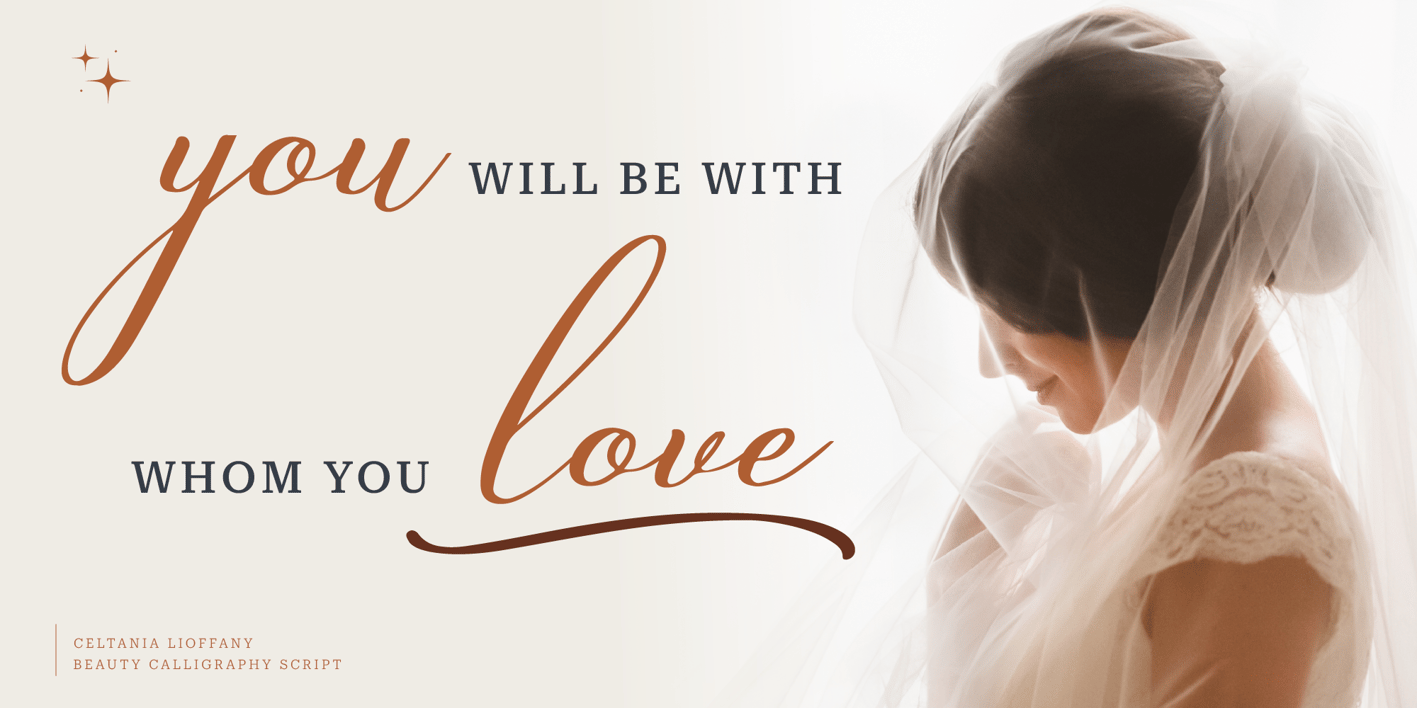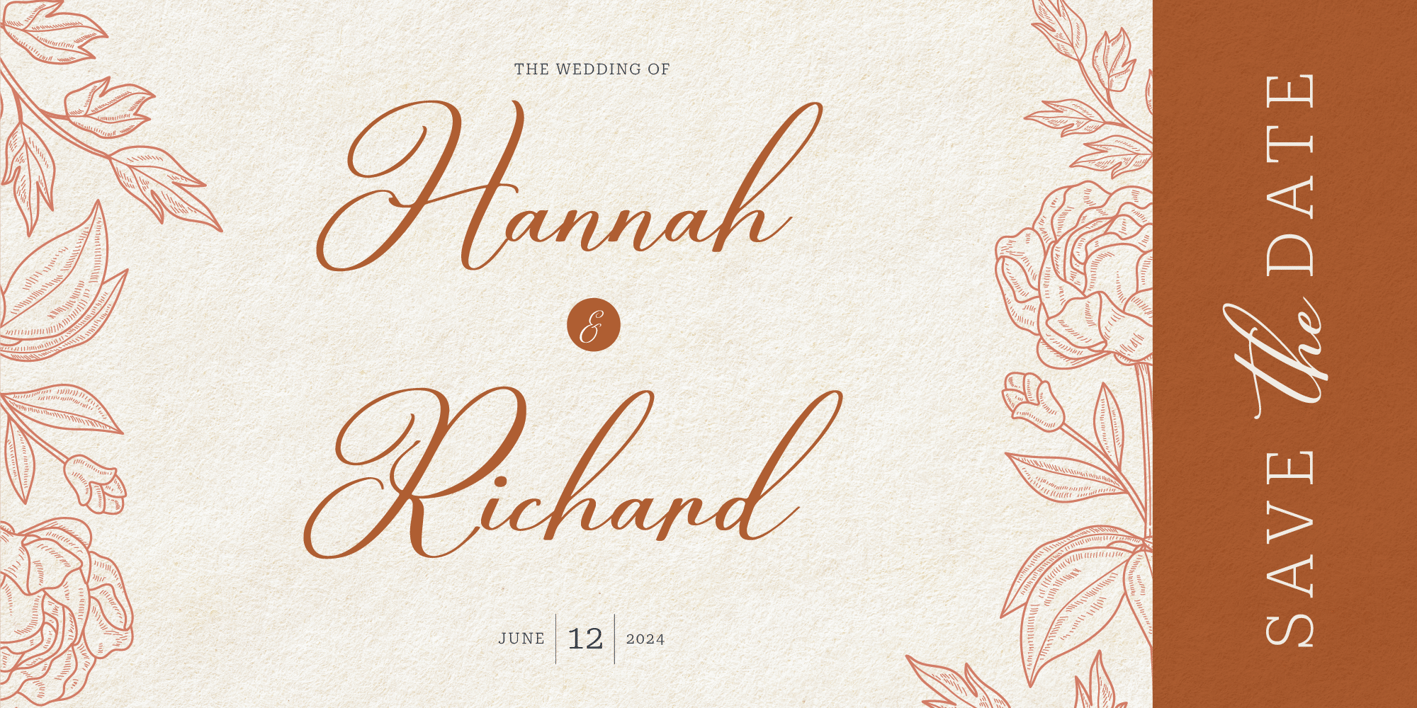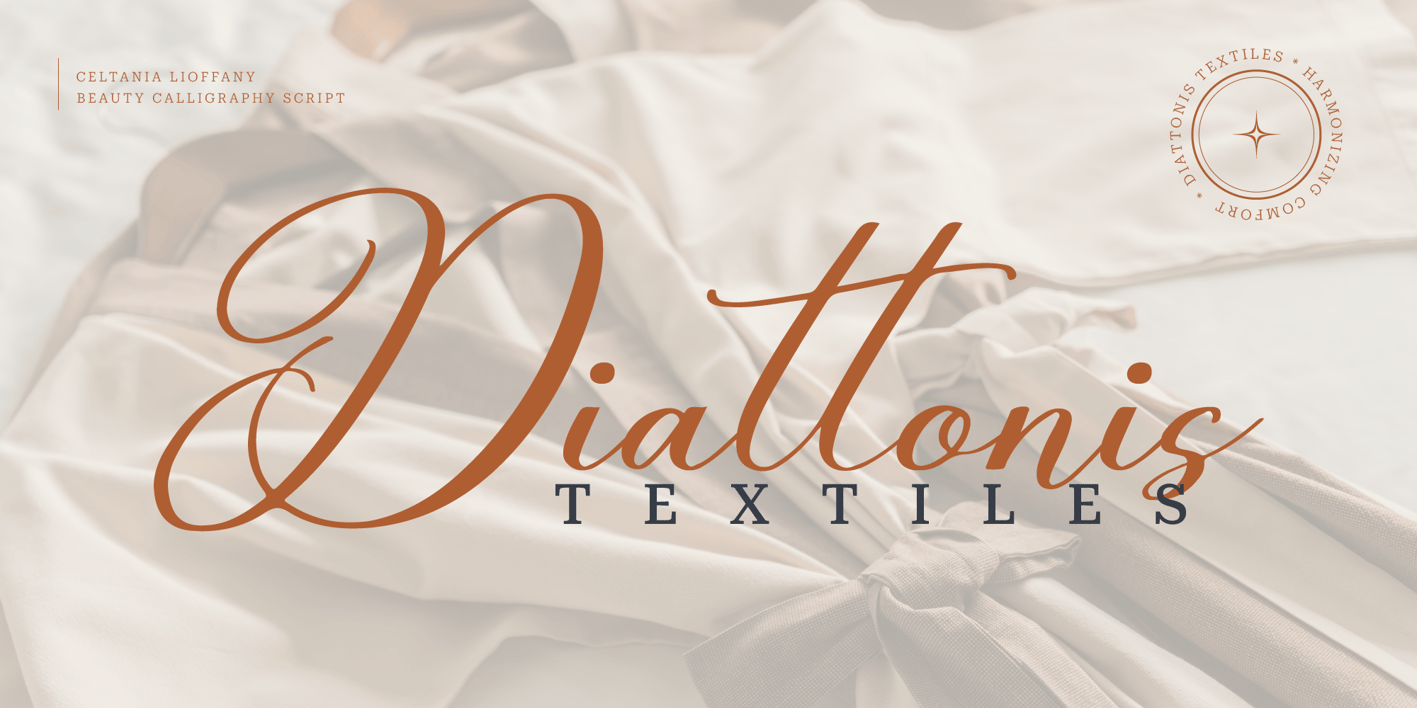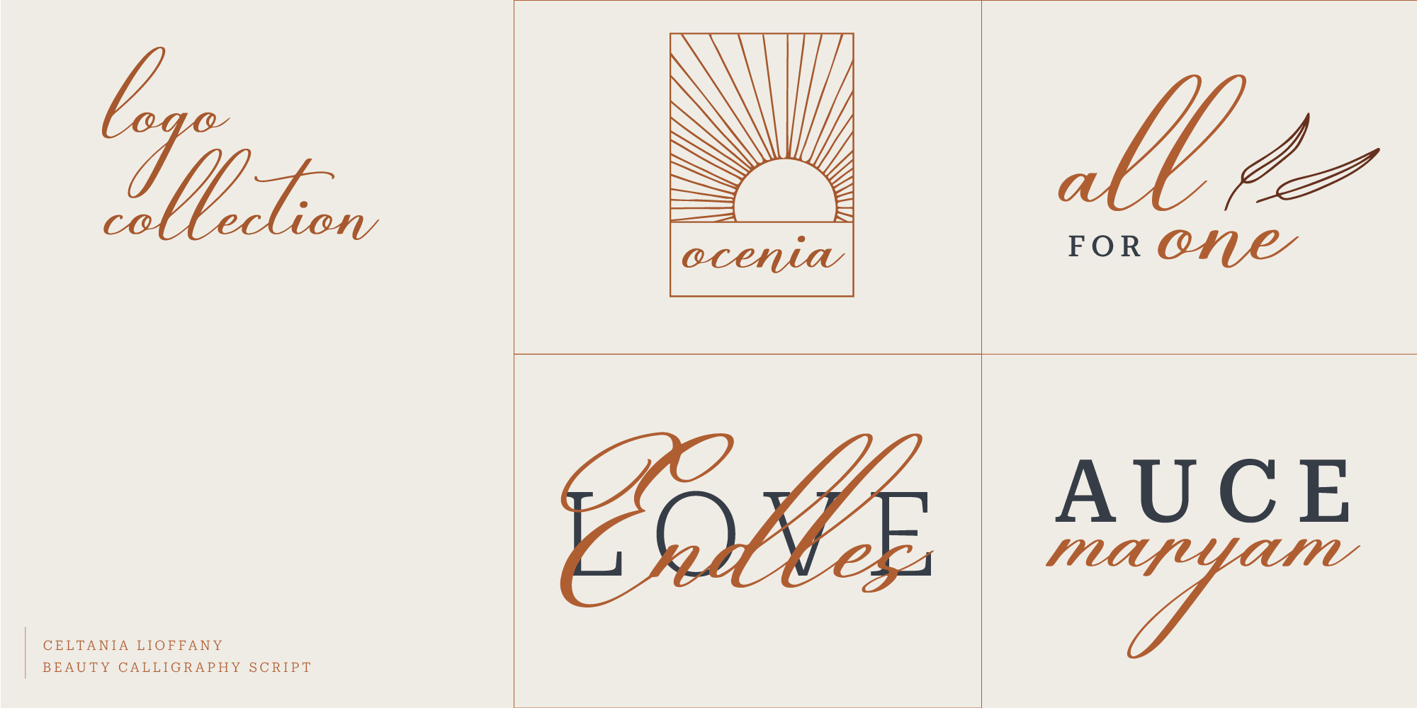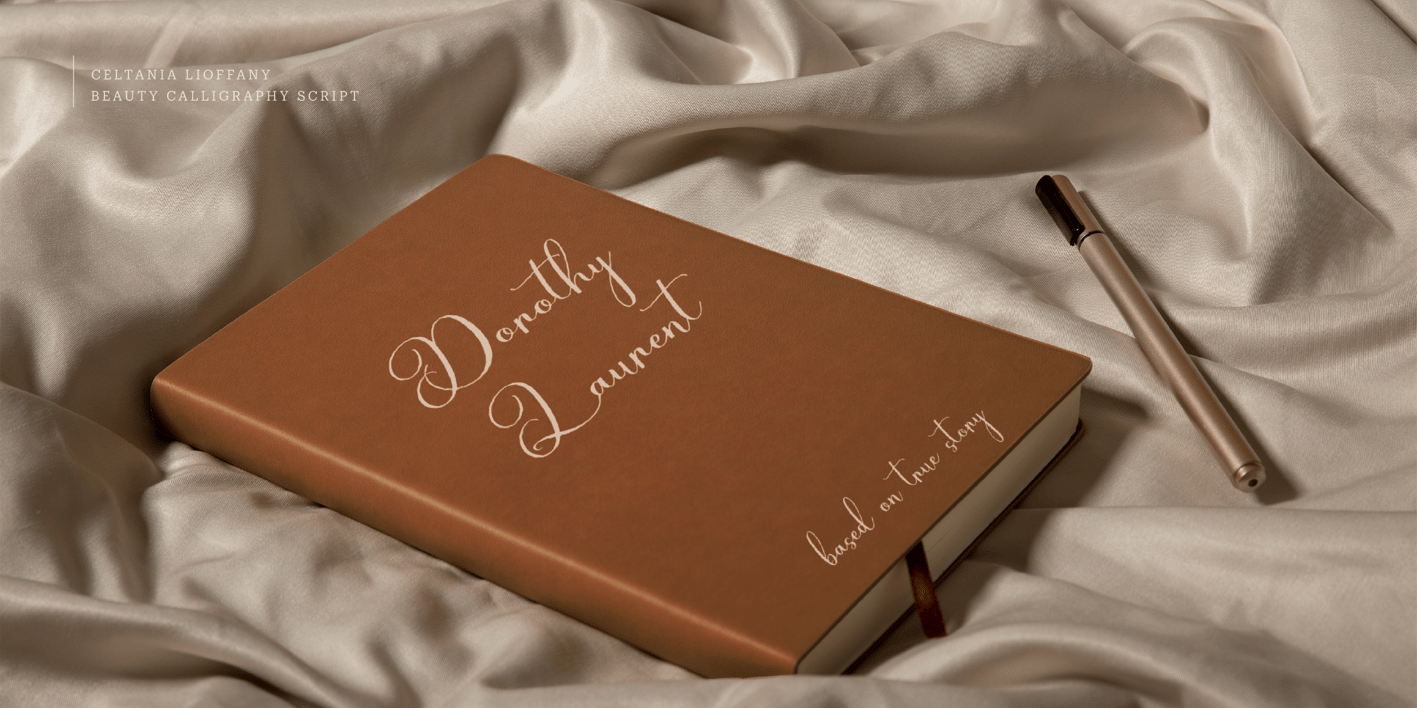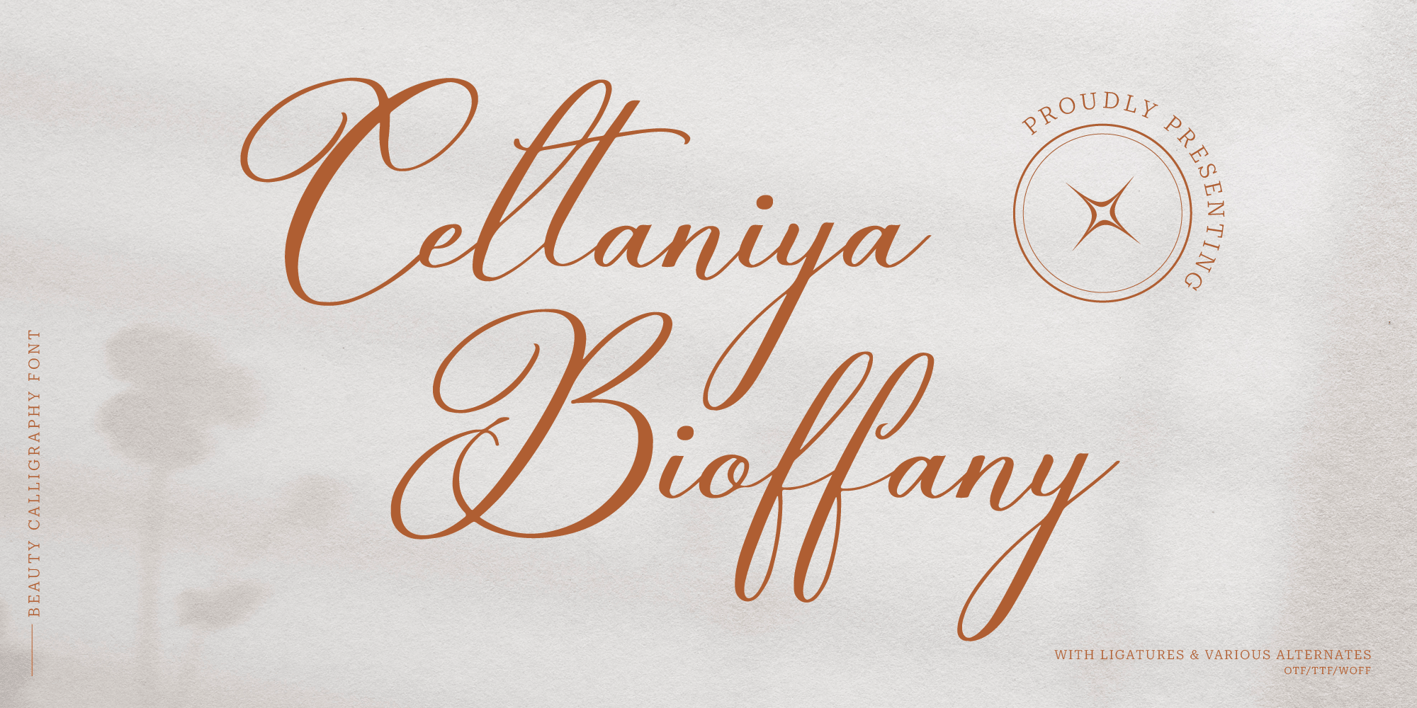
Celtaniya Bioffany Font
Celtaniya Bioffany | Calligraphy Script, from Gracetypestudio, suitable for any projects such as: logos, branding projects, homeware designs, product packaging, mugs, quotes, posters, shopping bags, t-shirts, book covers, name card, invitation cards, greeting cards, label, photography, watermark, special events, and all your other lovely projects that need a Calligraphy Script taste.